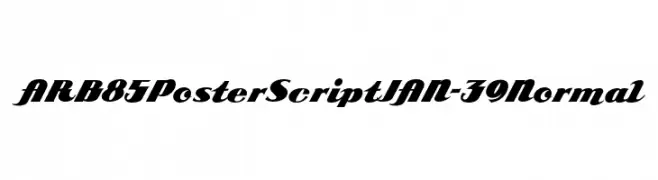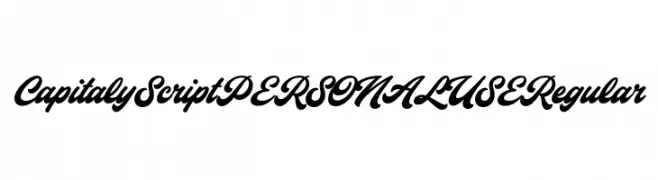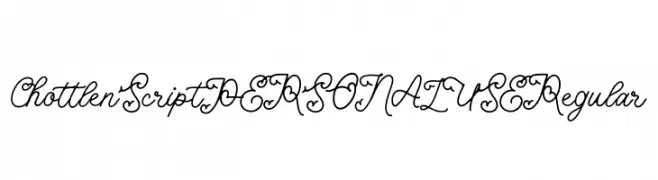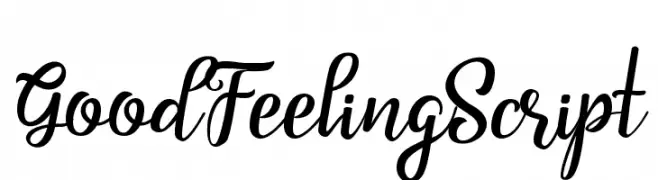
An elegant script font with flowing, cursive letters and graceful swashes.
A casual, handwritten script font with fluid strokes and medium contrast.
A smooth, flowing script font with an elegant, dynamic appearance.
A light, modern script font with elegant curves and clean lines.
A bold, italic script font with a modern, handwritten style.
A playful, bold script font with rounded edges and smooth curves.
An elegant, italic script font with flowing, connected strokes.
A playful, cursive script font with elegant loops and swirls.
A playful, handwritten script font with smooth, connected strokes.
A bold, italic script font with a flowing, handwritten style.
A bold, expressive script font with fluid, dynamic strokes.
An elegant and fluid script font with interconnected letters.
A charming and elegant script font with playful loops and swirls.
A lively, handwritten script font with elegant, flowing characters.
A flowing, elegant script font with a modern touch and decorative uppercase letters.
A playful, handwritten script font with a casual and fluid style.
A dynamic and fluid script font with elegant, flowing lines and cursive letterforms.
A lively and elegant script font with smooth, flowing curves.
A dynamic and fluid script font with elegant, flowing letterforms.
A bold, flowing script font with interconnected letters and a dynamic style.
A flowing, cursive script font with elegant, connected characters.
A playful and bold script font with smooth, rounded letterforms.
A bold, elegant script font with flowing, connected characters.
An elegant, flowing script font with delicate, calligraphic lines.
A graceful script font with flowing, cursive letters and elegant swirls.
A lively and elegant script font with decorative swirls and loops.
A graceful script font with flowing, connected strokes and elegant swashes.
An elegant, flowing script font with a sophisticated cursive style.